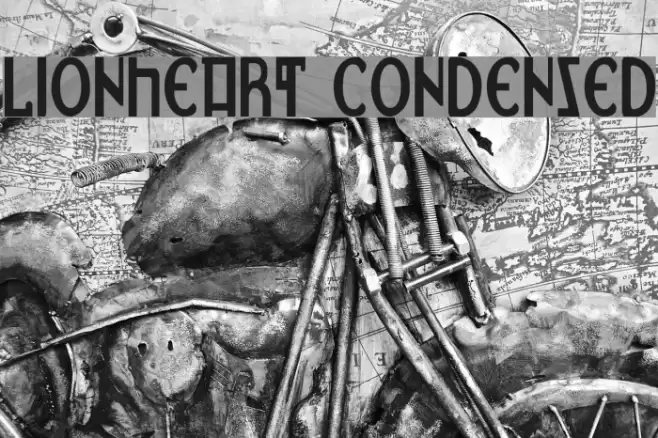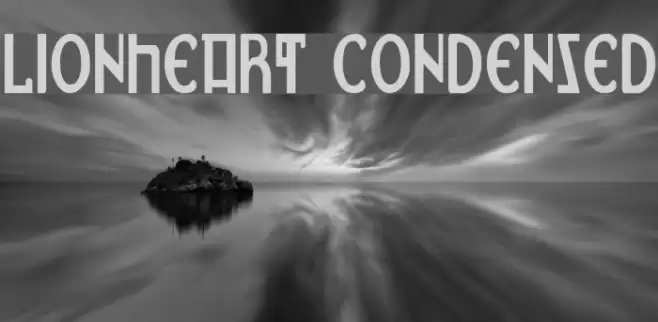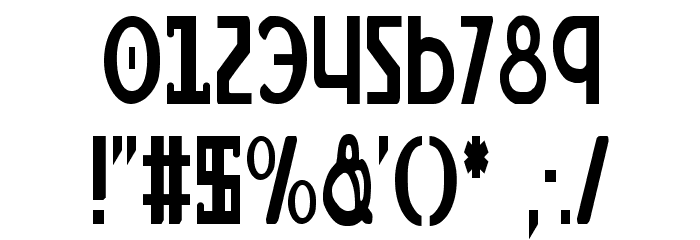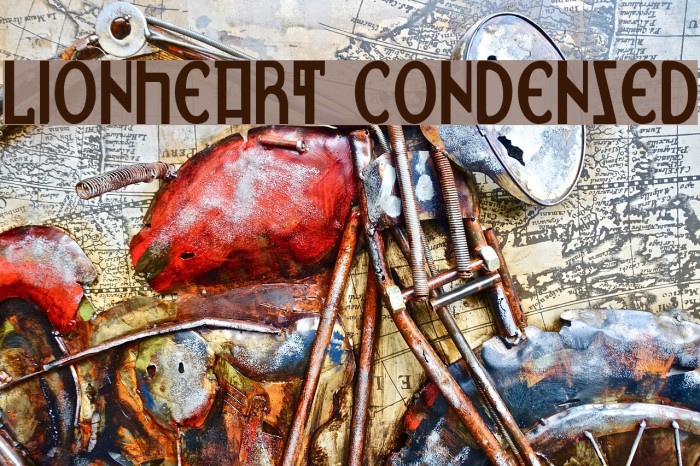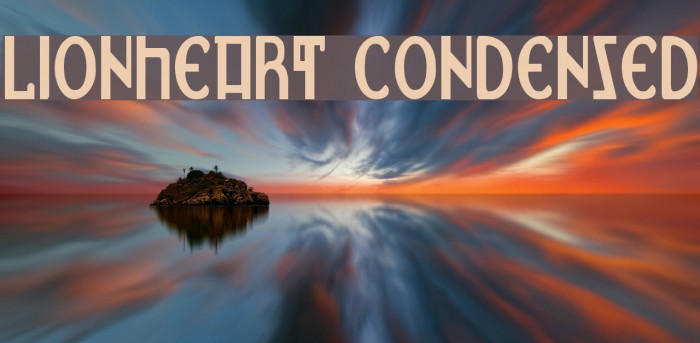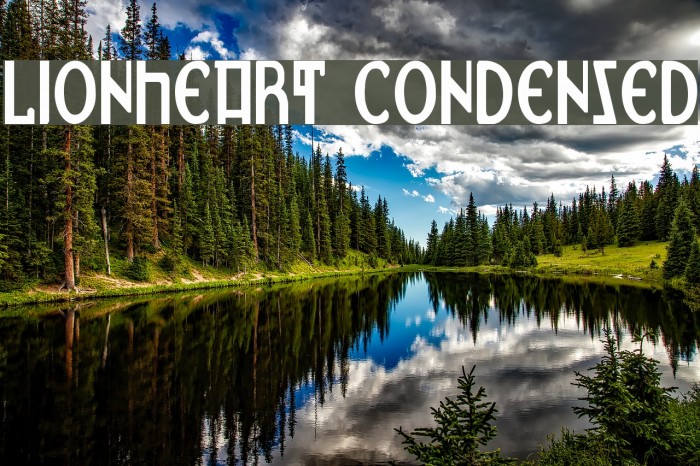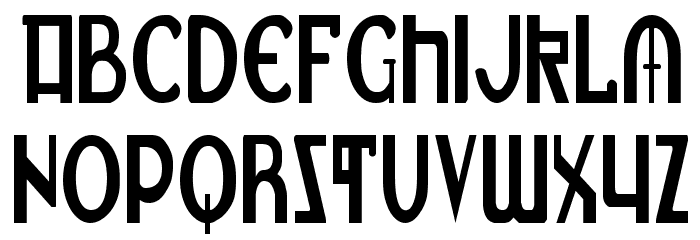
Lionheart Condensed Font
Lionheart Condensed Description
This font features a bold and condensed style with a unique geometric flair. The characters are designed with sharp angles and a modern aesthetic, giving them a distinctive and eye-catching appearance. The uppercase letters are particularly striking, with some characters incorporating unusual shapes and cuts that add to the font's decorative nature. The numbers and special characters maintain this bold and artistic style, making the font suitable for creative and impactful designs. The overall look is both contemporary and slightly retro, offering versatility for various design projects.
A bold, condensed font with geometric and decorative elements from Valentine's Day fonts.
- Proposed Projects: Ideal for posters, logos, branding, and headlines that require a bold and artistic touch.